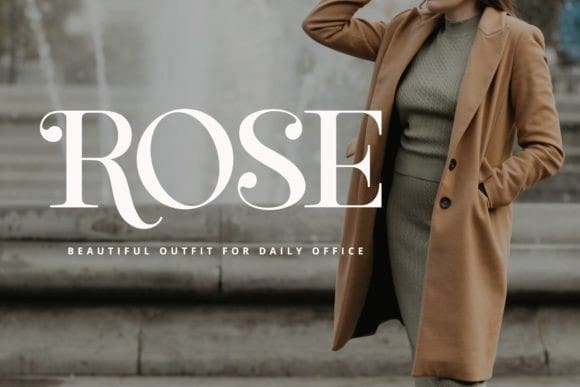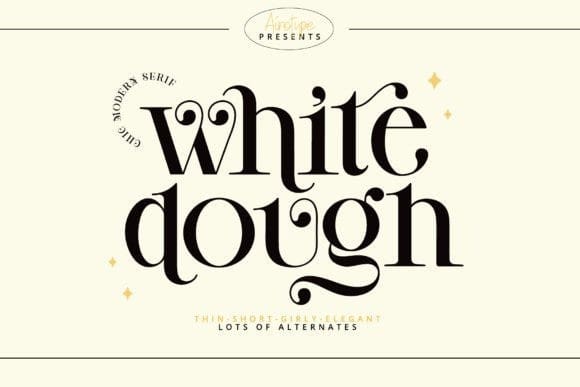
White Dough Font
White Dough Font is an elegant and bold serif font. Fall in love with its incredibly versatile style and use it to create gorgeous wedding invitations, beautiful stationary art, eye-catching social media posts, and much more!